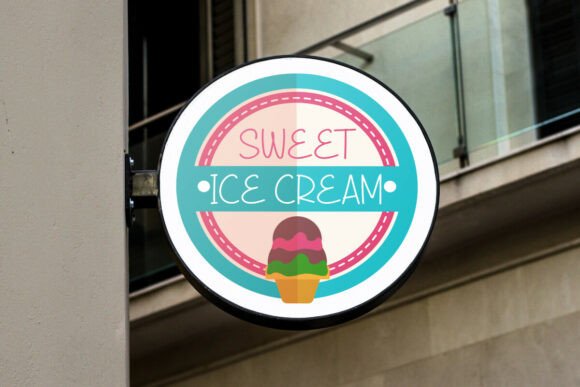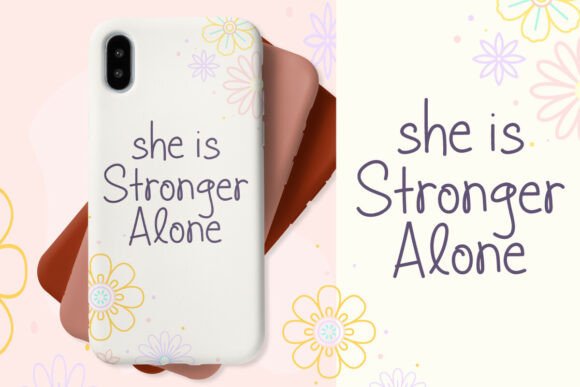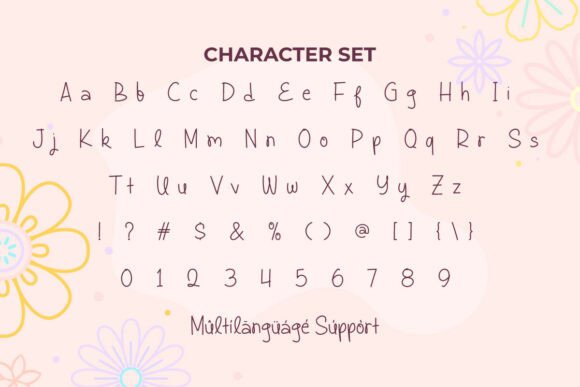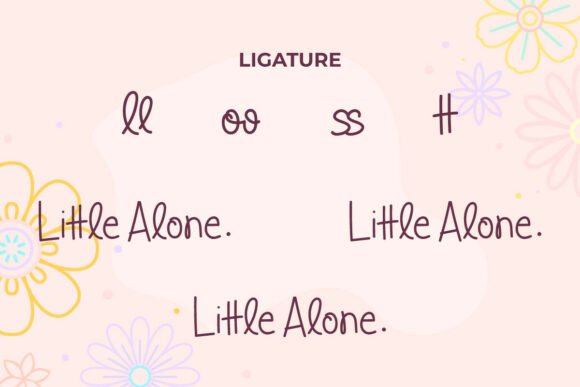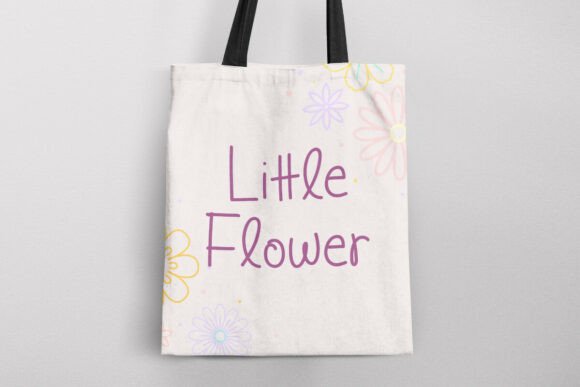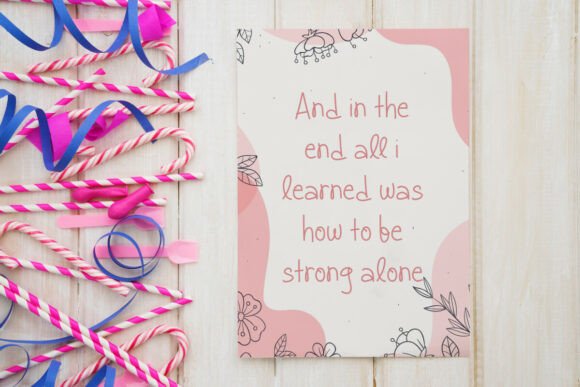
Introduction to Littlealone Font
Remember the rush of excitement you felt when you finally found the perfect font to bring your creative vision to life? The one that made your project stand out and connected with your audience on a deeper level? That’s exactly what you can expect from the Littlealone Font – a joyful and modern display typeface that radiates freshness and charm through its cheerful, handcrafted letterforms.
With its clean, sleek, and minimalist design, the Littlealone Font is a valuable resource for designers looking to add a personal touch to their projects. Whether you’re working on a high-quality design for a bakery, a fashion brand, or a website, this font is sure to enhance your creative project and leave a lasting impression.
Key Features of Littlealone Font
- High-quality design resource with a unique, hand-drawn style, perfect for creative projects.
- Features a large character set, including uppercase and lowercase letters, numbers, and punctuation marks.
- Perfect for designers looking for a distinctive, elegant font to add a touch of sophistication to their creative projects.
Honest Review: Littlealone Font
I recently stumbled upon the Littlealone Font and I’m excited to share my honest review with you. As a designer, I’m always on the lookout for high-quality design resources to elevate my creative projects.
What works well about the Littlealone Font is its elegant and delicate design, perfect for a wide range of applications from invitations to book titles. The font’s transparent background makes it easy to work with and allows for seamless integration into any design.
- ✨ Elegant and delicate design
- ✨ Transparent background for easy integration
- ✨ Suitable for various creative projects
While the Littlealone Font excels in many areas, there are a few limitations to consider. The font’s versatility might make it difficult to stand out in crowded designs, and some users may find it too subtle for bold statements.
- ⚠️ May not be suitable for bold or eye-catching designs
- ⚠️ Limited customization options
Getting the Most Out of Littlealone Font
Use the Littlealone Font in combination with other design elements to create visually appealing designs. Experiment with different font sizes, colors, and styles to find the perfect look for your creative project.
The Littlealone Font is perfect for creative projects that require a high-quality, transparent background font. Use it for logos, branding materials, presentations, and documents.